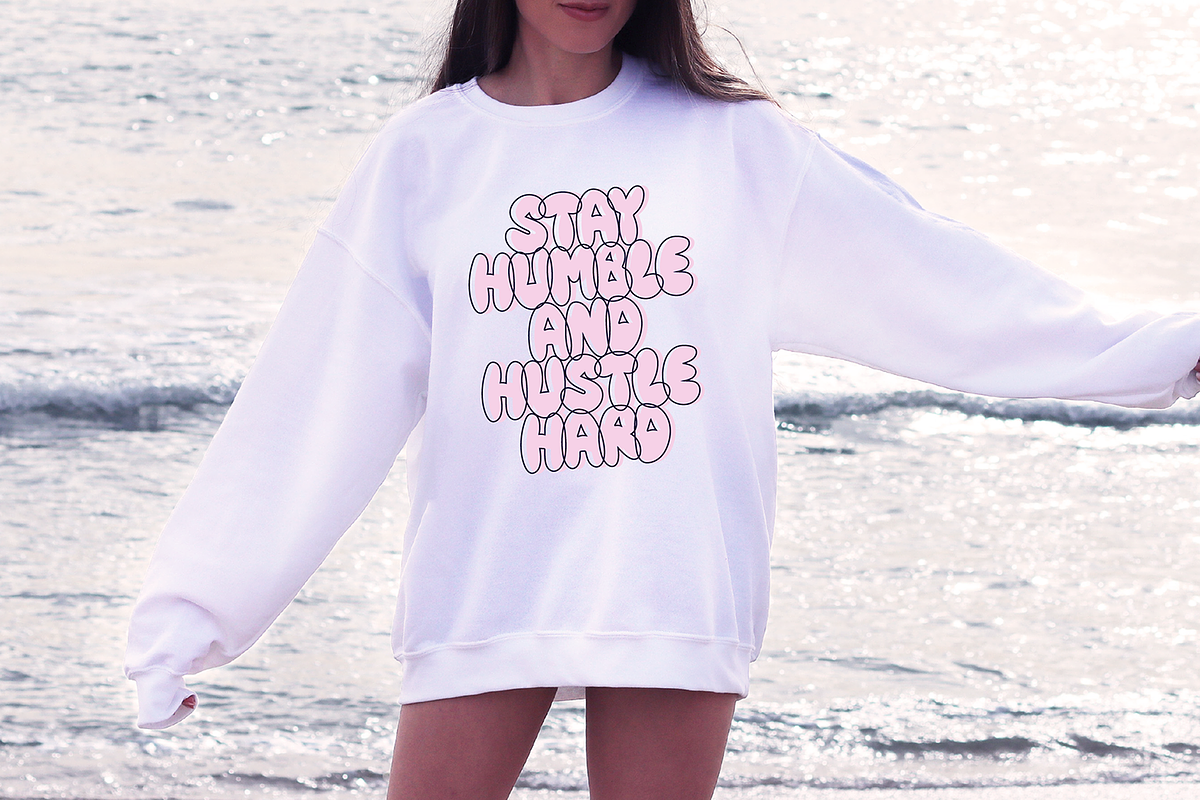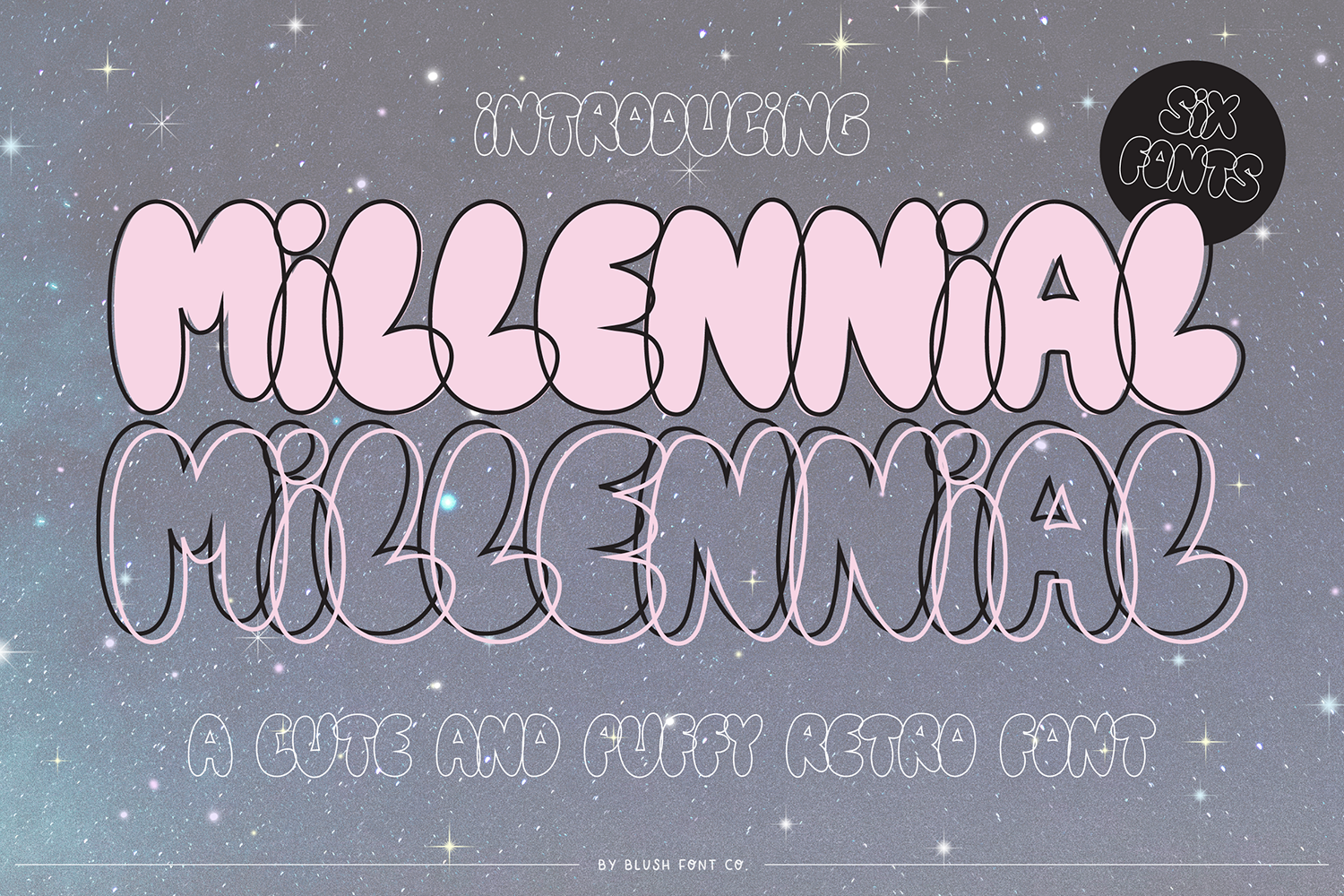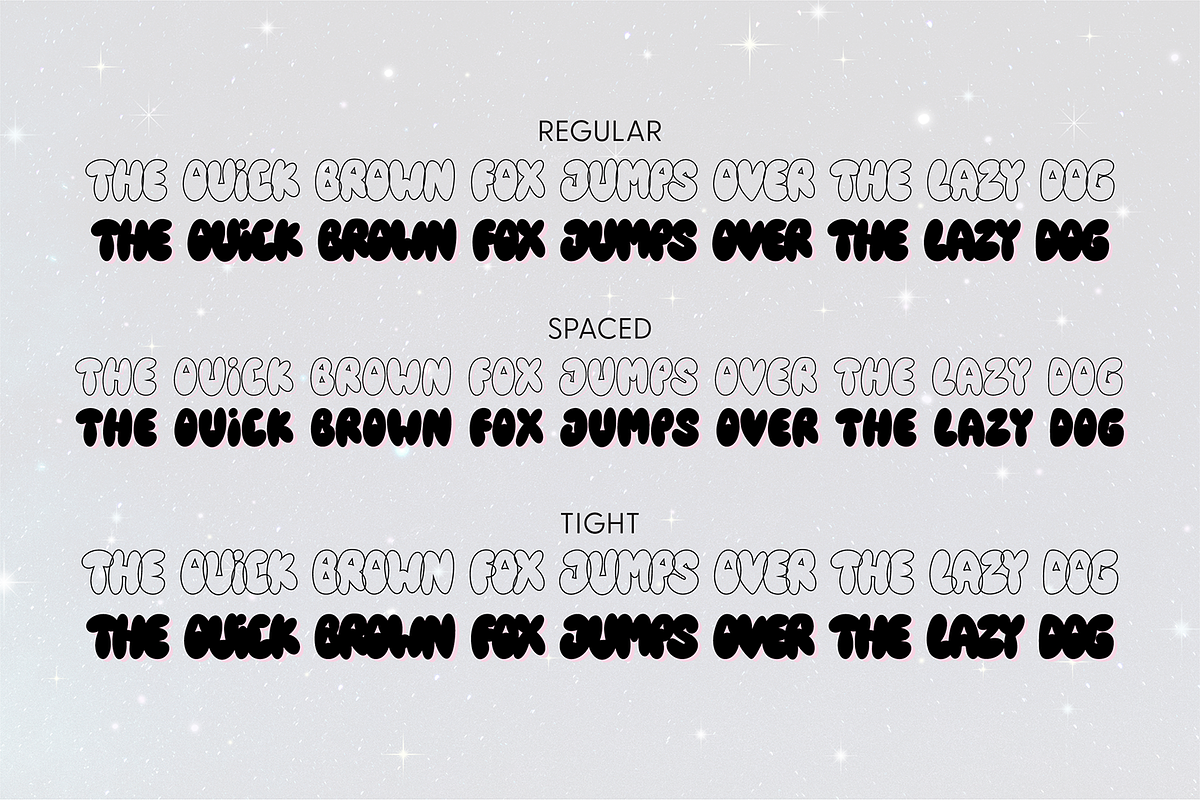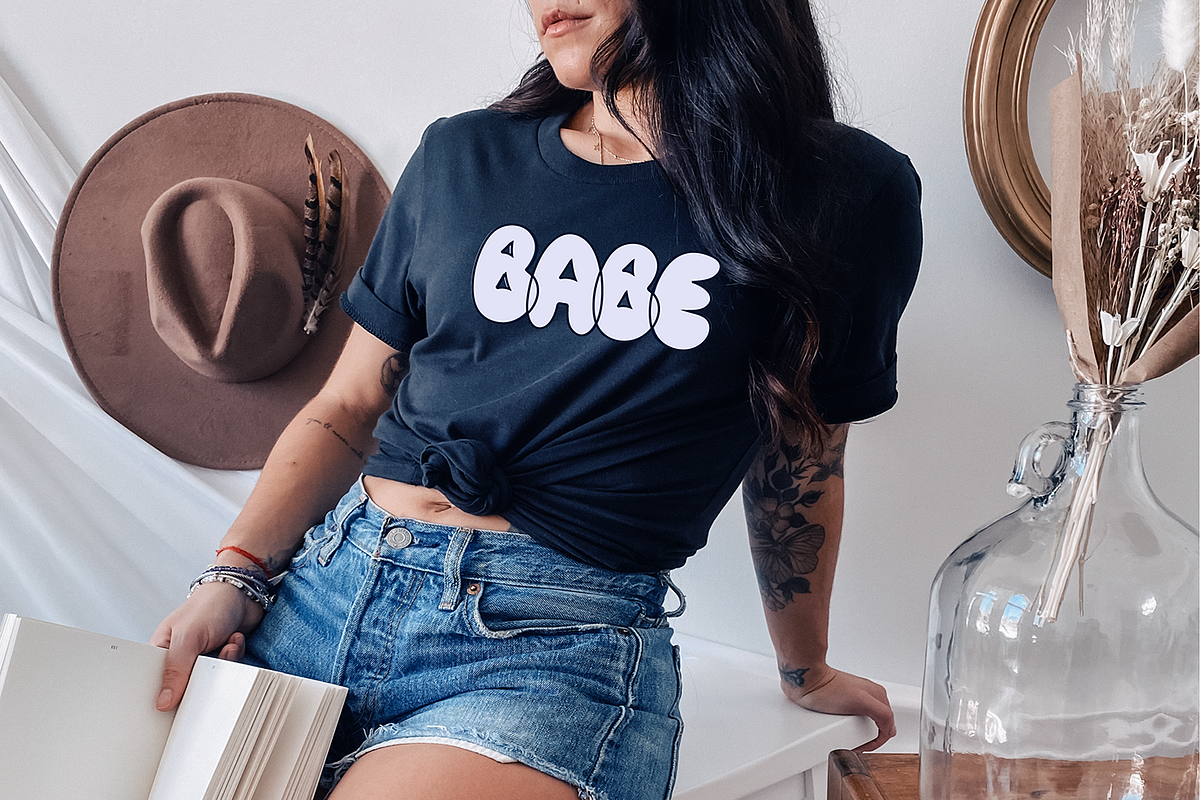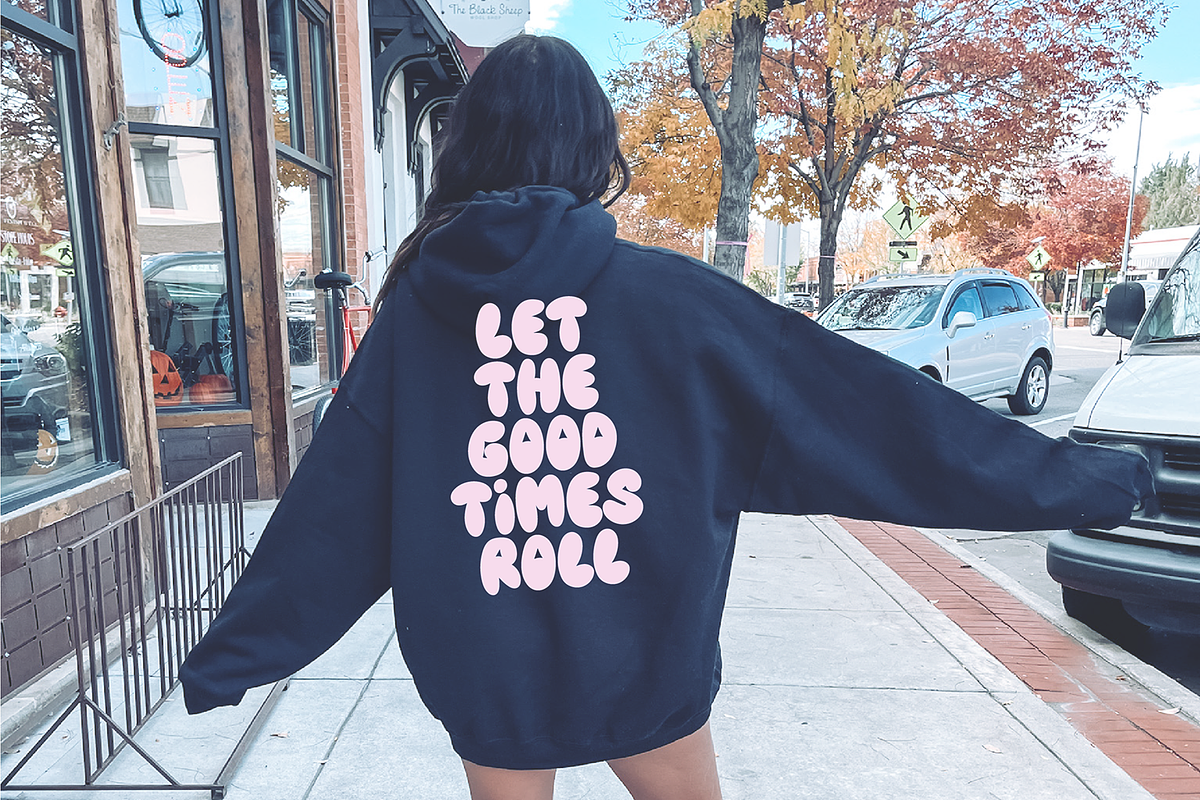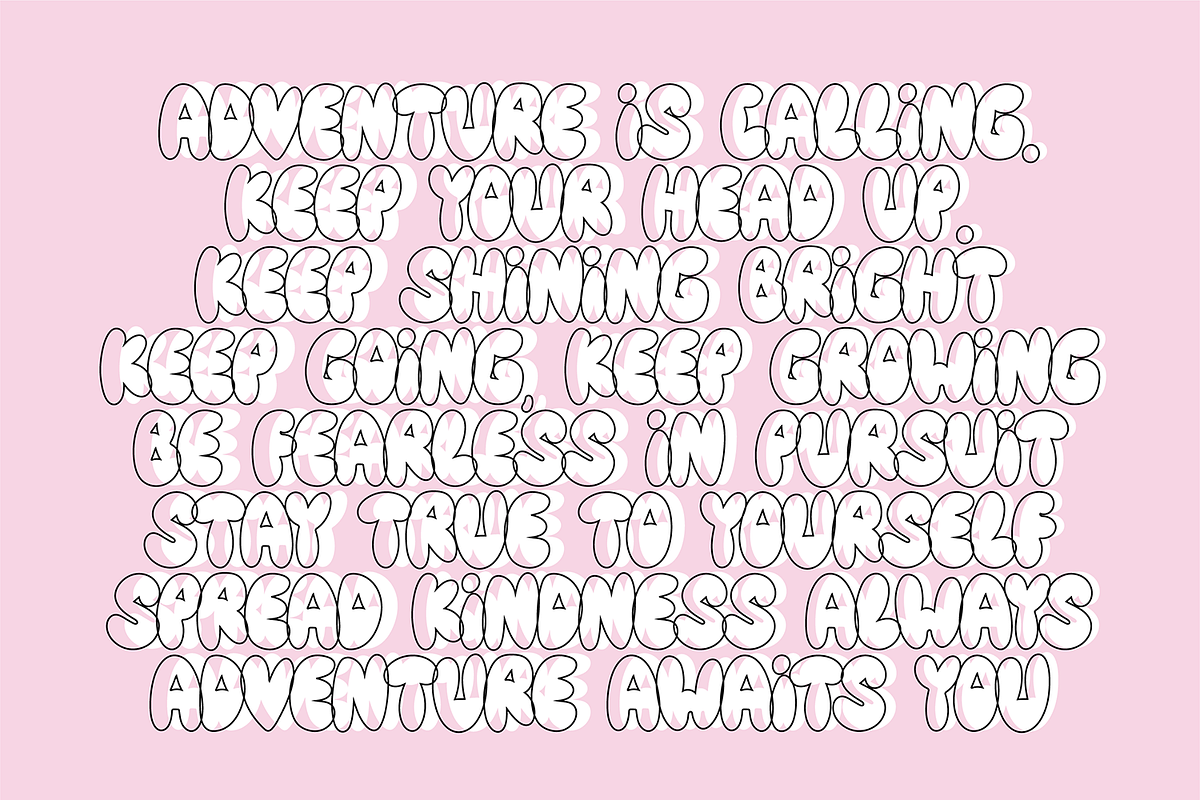
MILLENNIAL Trendy Y2K Graffiti Font
"MILLENNIAL" a trendy bubbly y2K graffiti font
6 VERSIONS INCLUDED: Regular, Regular Outline, Spaced, Spaced Outline, Tight, Tight Outline.
This font is a trendy display font that is perfect for social media or crafty projects. Use it for branding, crafts for decor, t-shirts, and more! This font includes all caps glyphs, numbers, and punctuation marks.